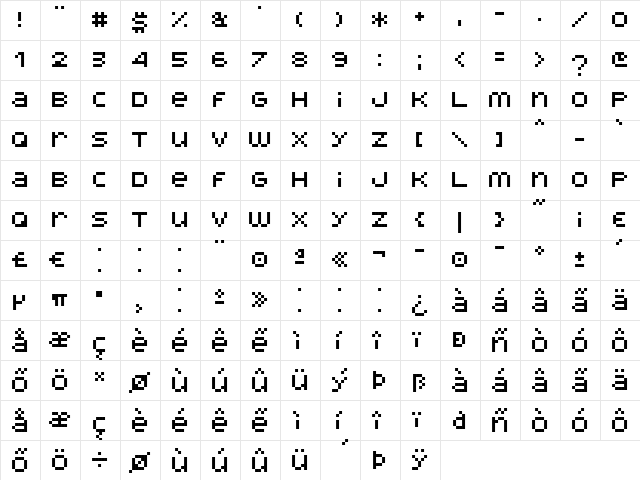
Ladybug Px Regular
| Foundry | Kemie Guaida / pixilate.com |
| Designer | Kemie Guaida |
Design Context for Ladybug Px Typeface
Ladybug Px is a composed and adaptable typeface that performs quietly and consistently across a wide range of design contexts.